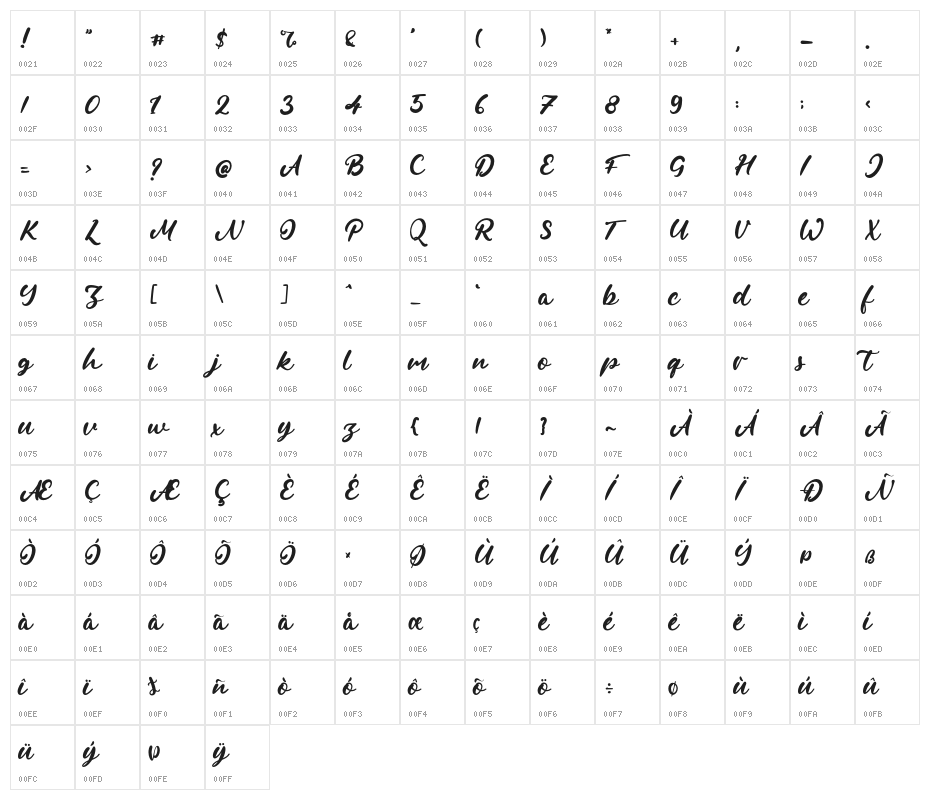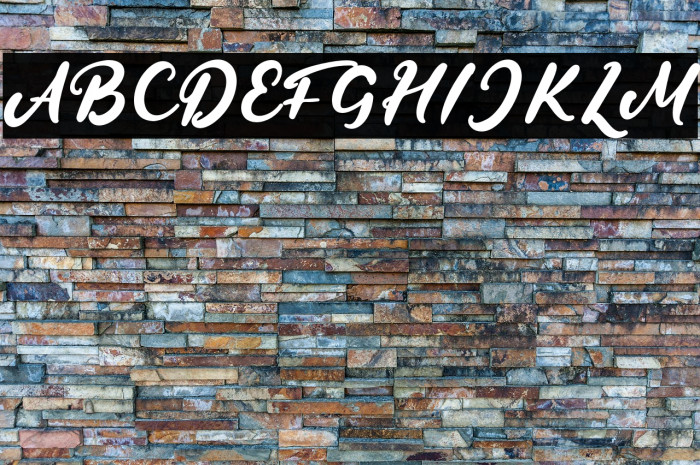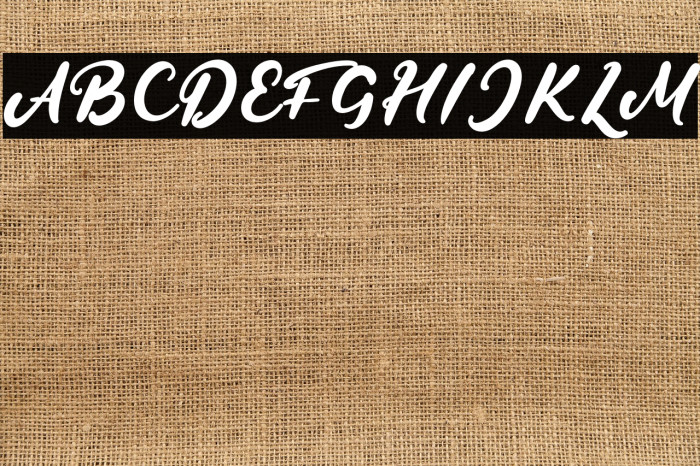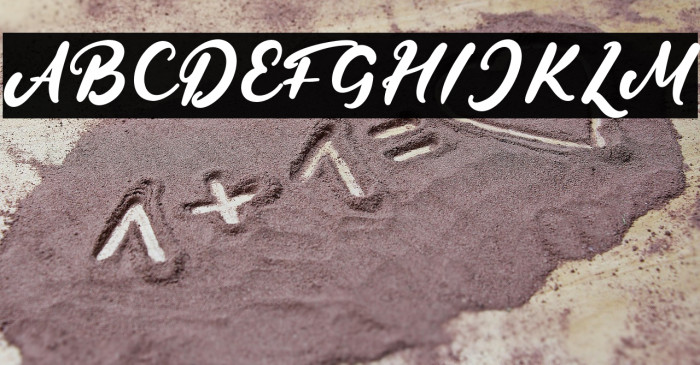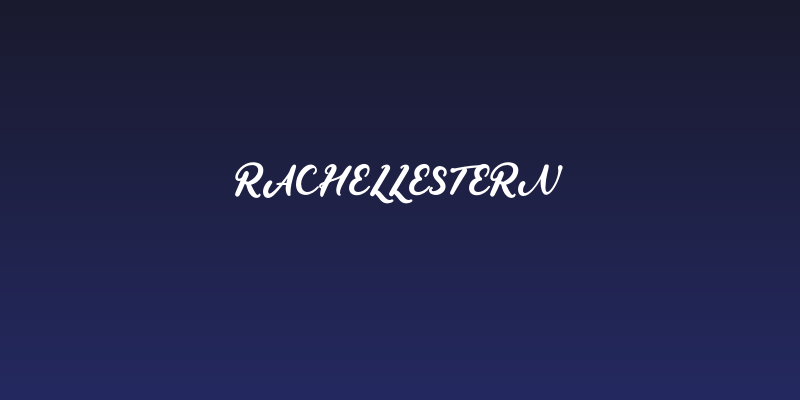
RachelleStern Font
RachelleStern Description
This font features a flowing, cursive style that exudes elegance and sophistication. The letters are connected in a smooth, continuous manner, giving it a handwritten appearance. The uppercase letters are slightly more embellished, with graceful loops and swirls, while the lowercase letters maintain a consistent, flowing form. The numerals are distinct yet harmonize well with the overall script style. Special characters are crafted with the same attention to detail, ensuring they blend seamlessly with the alphabet. This font is perfect for projects that require a personal touch or a sense of refined style.
| Proposed Projects | Ideal for wedding invitations, greeting cards, personal branding, and elegant packaging design. |